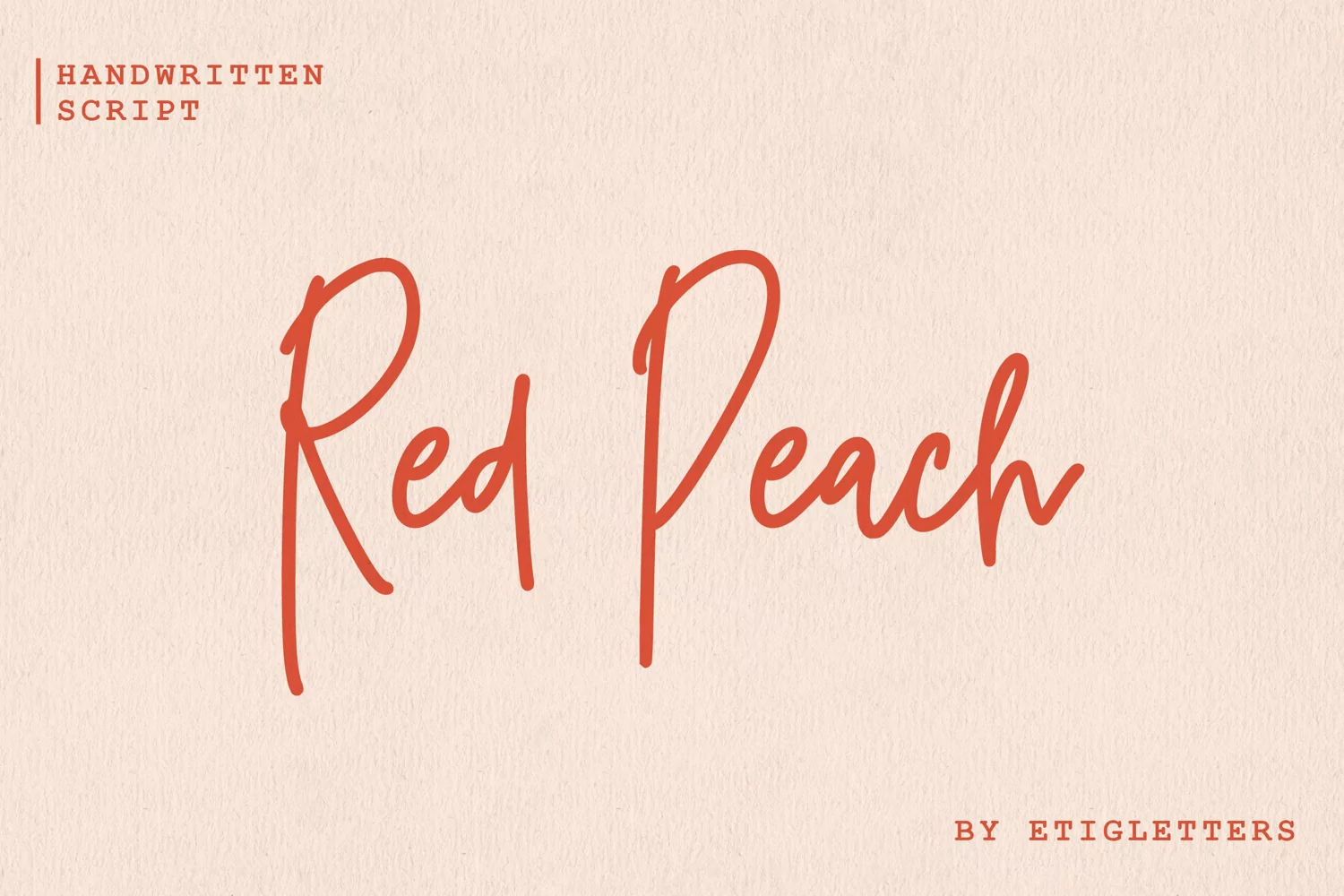
Created By Etigletters
Red Peach Monoline Script
Introducing, Red Peach - a monoline handwritten font. Red Peach will be perfect for wedding invitation, greeting cards, logos, posters or anything that requires a fun and playful look!